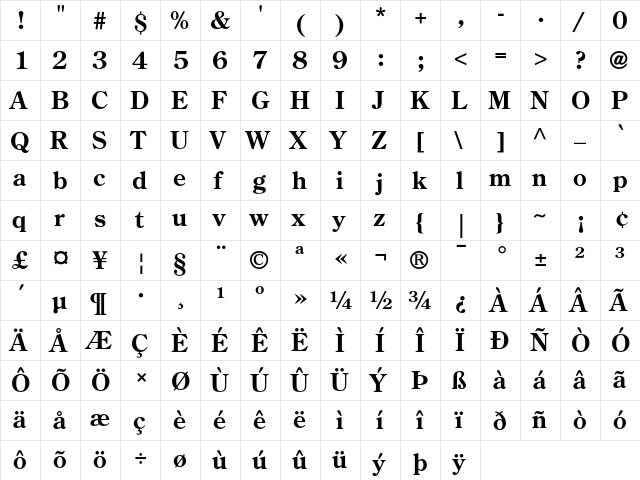
Century Old Style Bold
Design Context for Century Old Style Typeface
Century Old Style takes a measured approach to typography — its balanced proportions and neutral character make it a reliable workhorse for both digital and print work. The heavy weight commands attention and anchors typographic hierarchies.